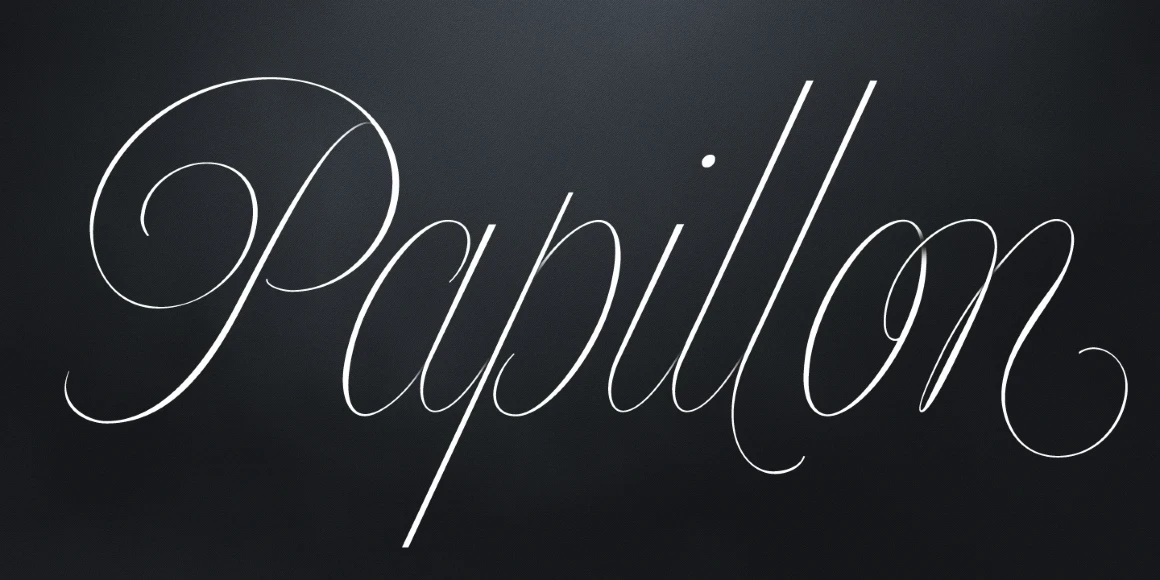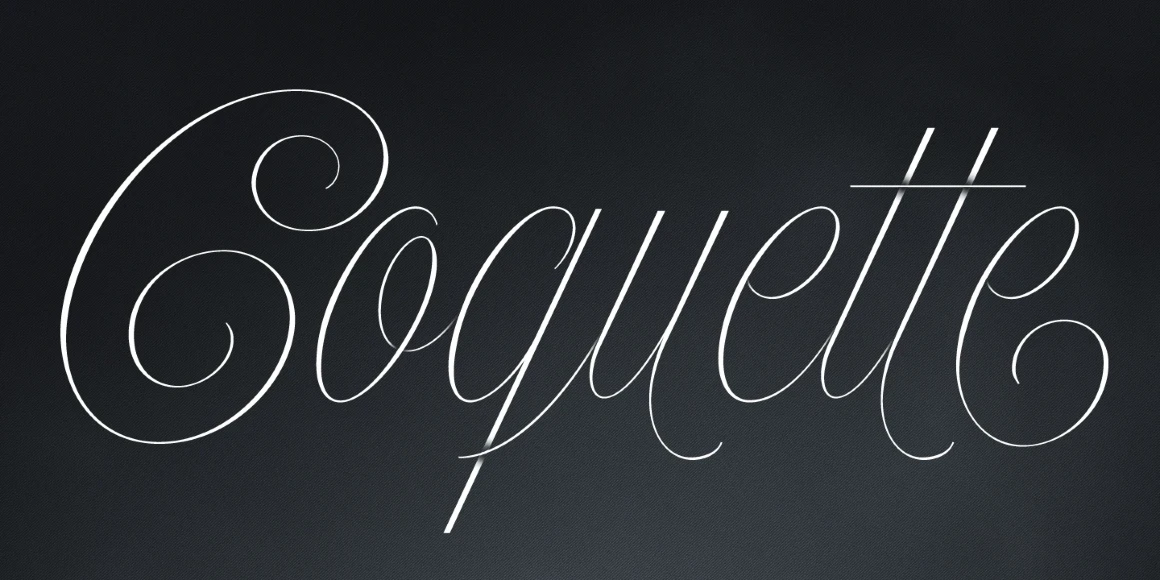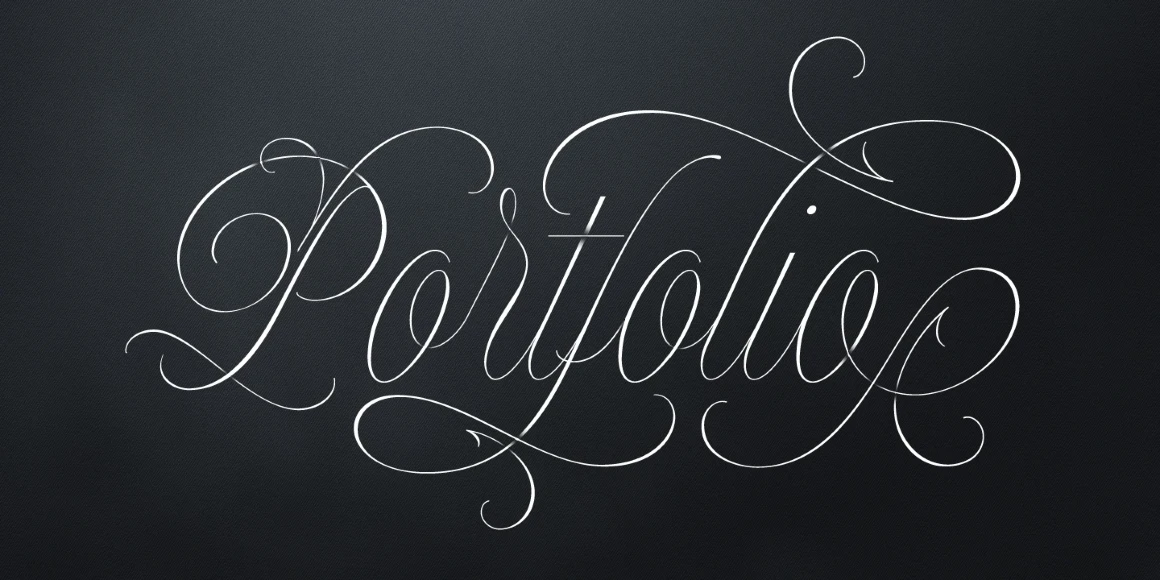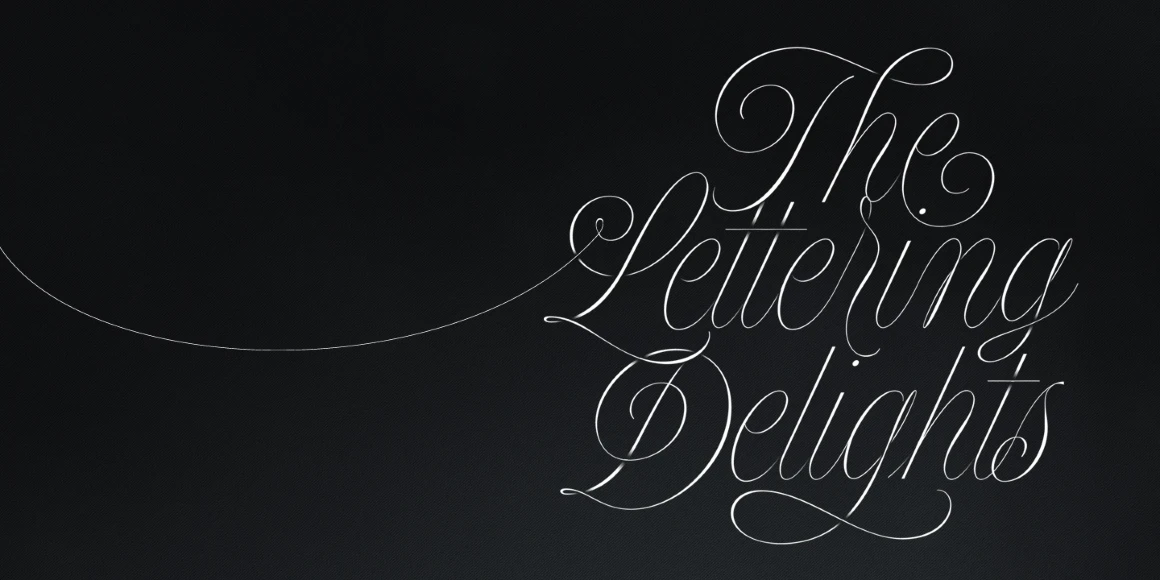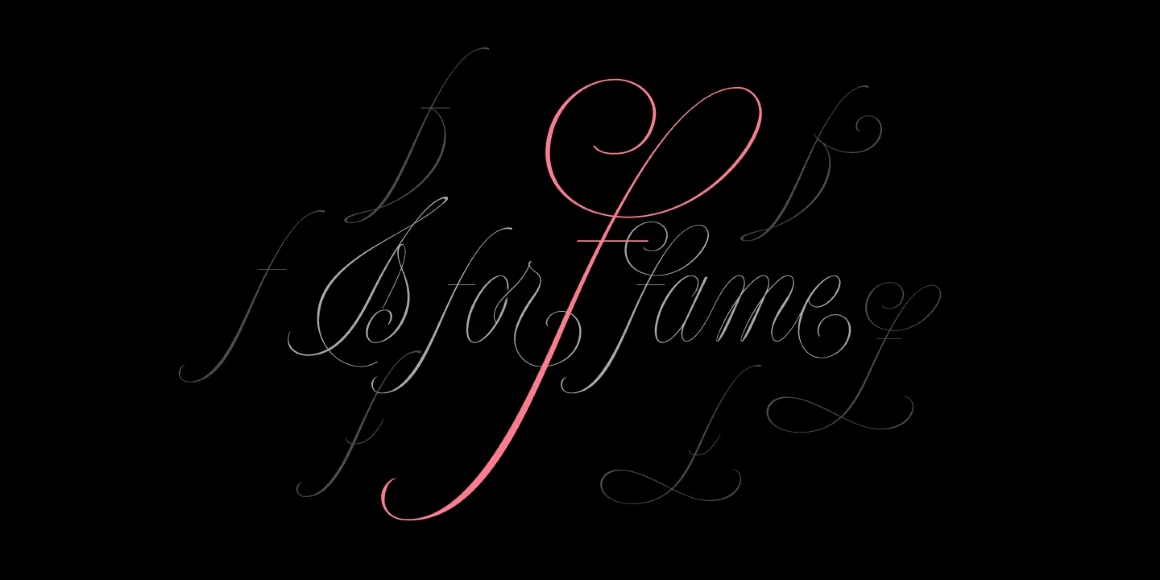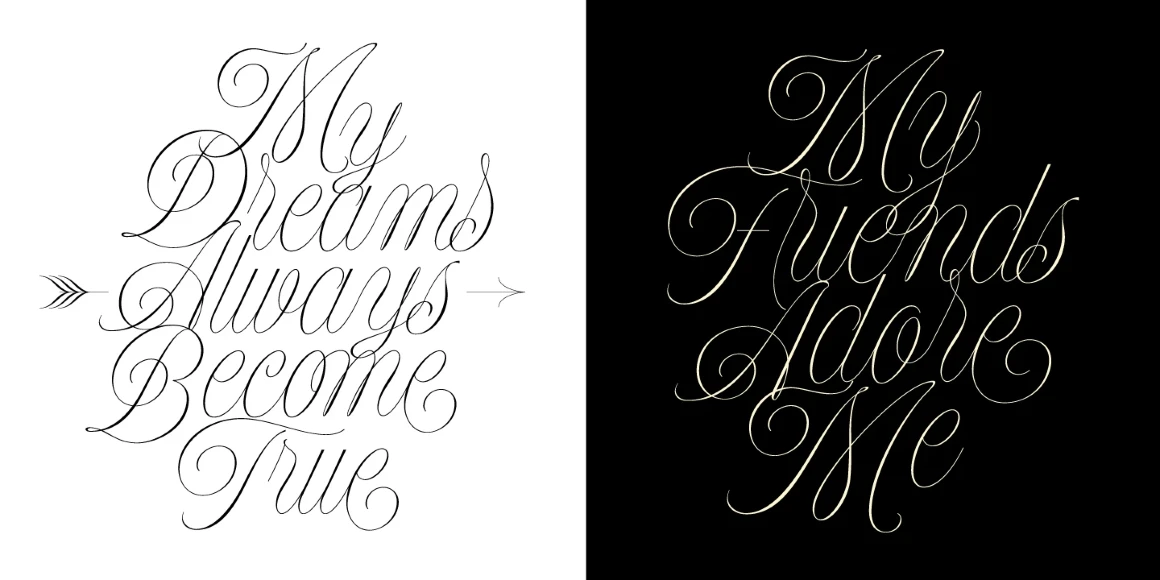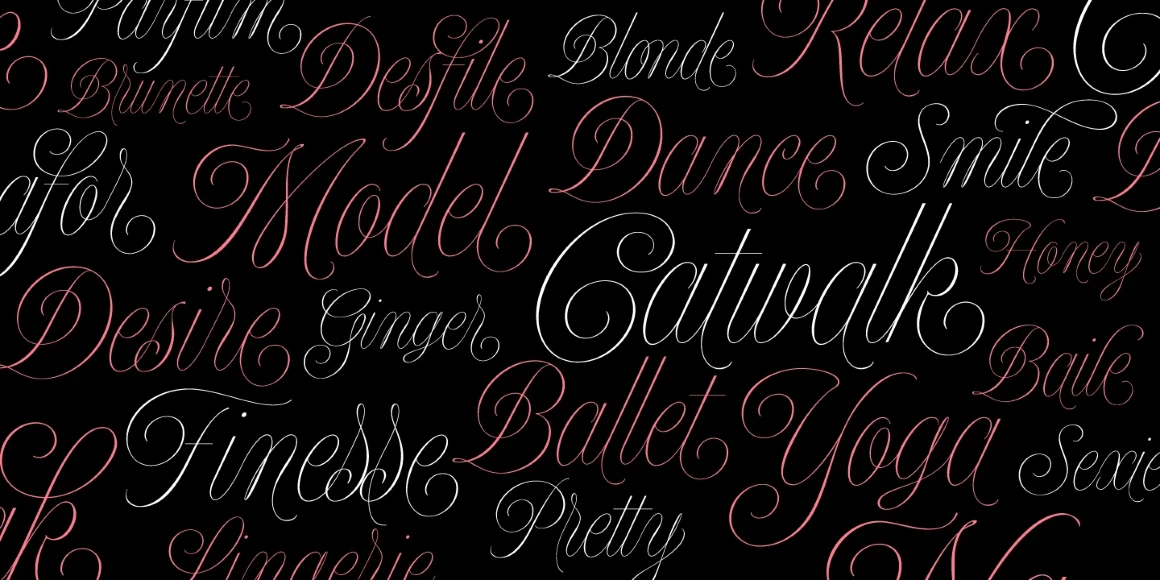
Model
From Sproviero Type
Model is a poised and polished script with runway-worthy elegance. Its subtle contrast, graceful curves, tall proportions, and restrained flourishes give it a refined, high-fashion presence. Designed to adapt beautifully across sizes and settings, it’s ideal for magazine spreads, book covers, party invitations, or event posters. Available in four optical sizes or a single variable font to deliver the right amount of drama — never too much, never too little.
Designed by Maximiliano Sproviero